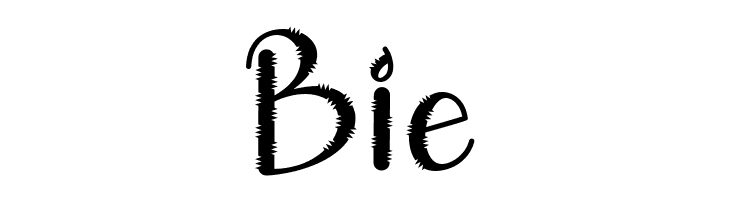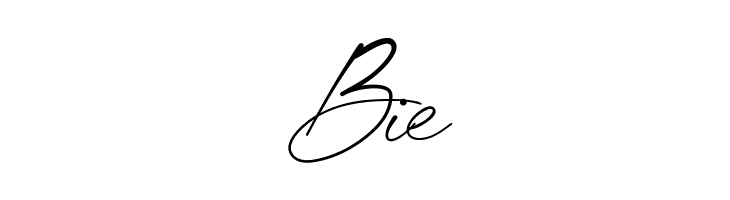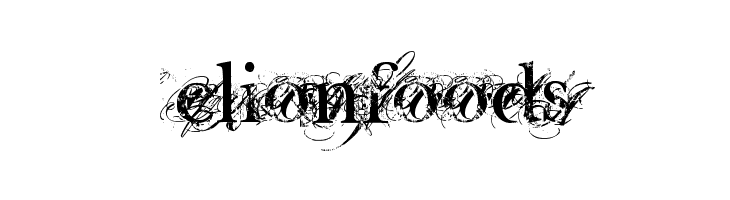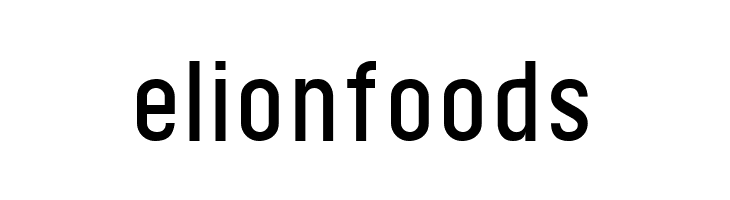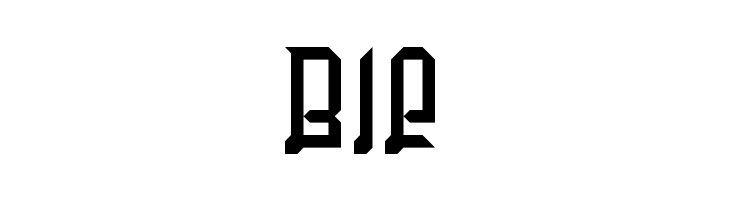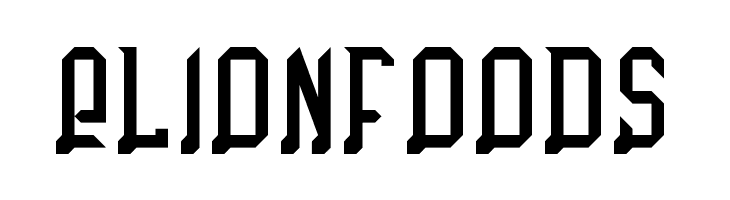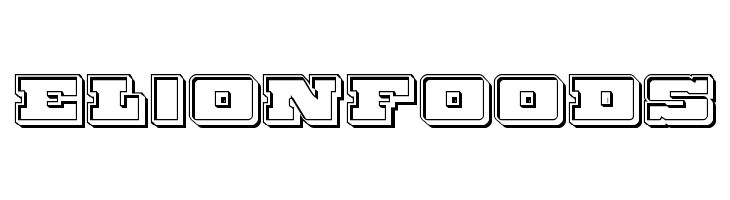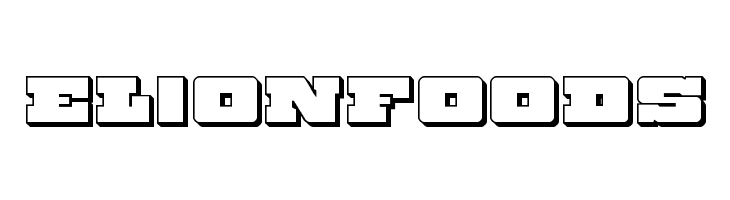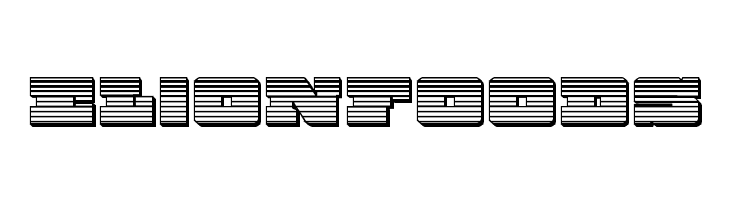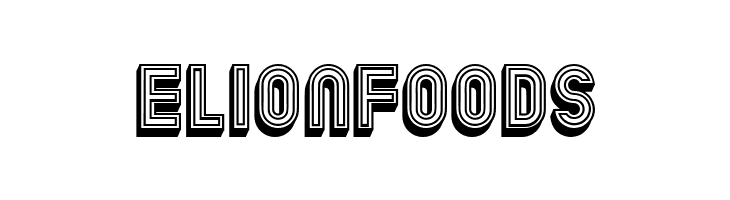
A sophisticated, cursive font with fluid, interconnected letters.
A playful, handwritten font with brush-like strokes and an artistic flair.
A hand-drawn, artistic font with uneven strokes and a dynamic, chaotic style.
A decorative serif font with a distressed, artistic flair.
A bold, 3D font with a dotted pattern and geometric structure.
A bold, 3D neon-style font with layered outlines for a striking effect.
A bold, blocky typeface perfect for headlines and impactful designs.
A bold, 3D block font with strong outlines and a shadow effect.